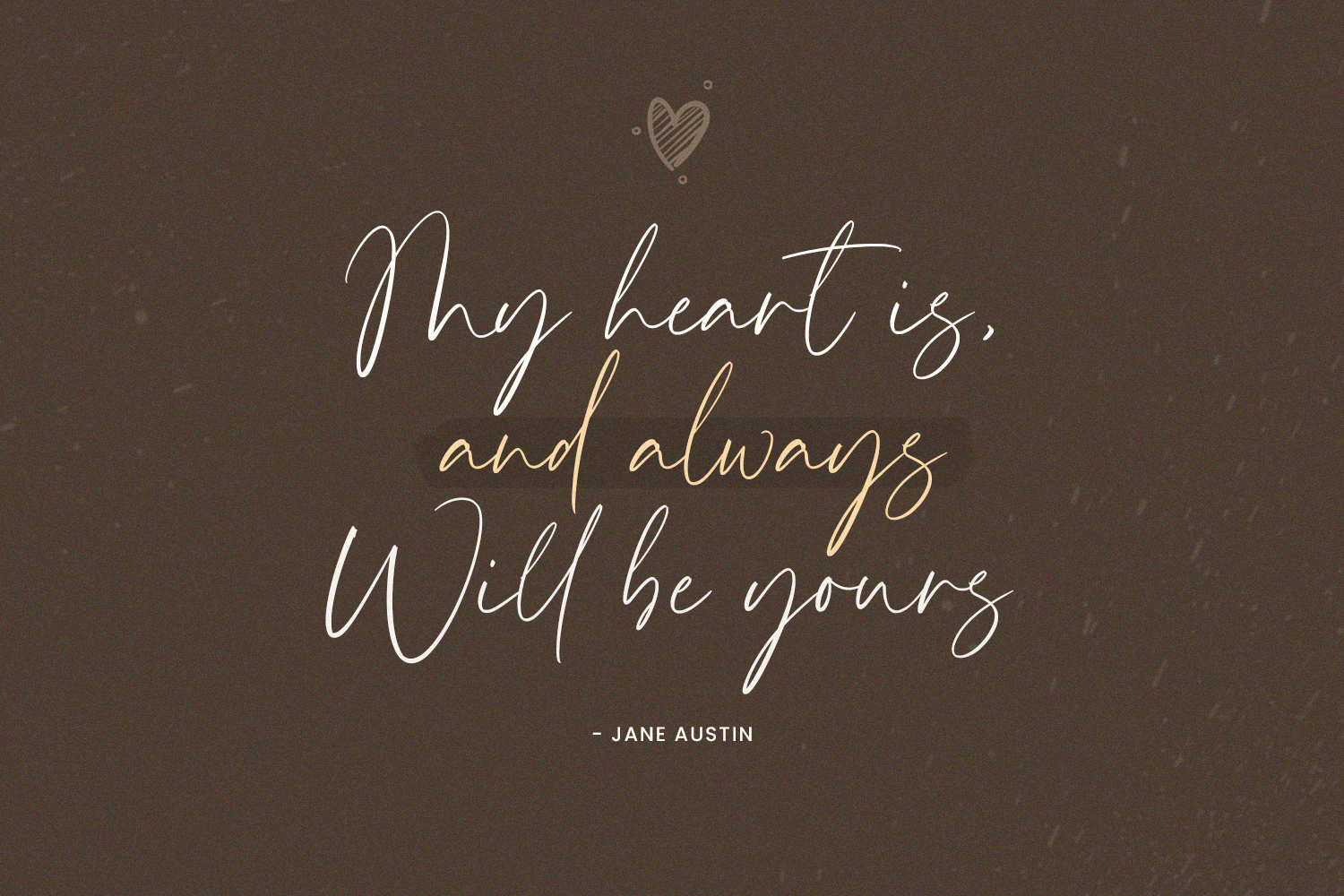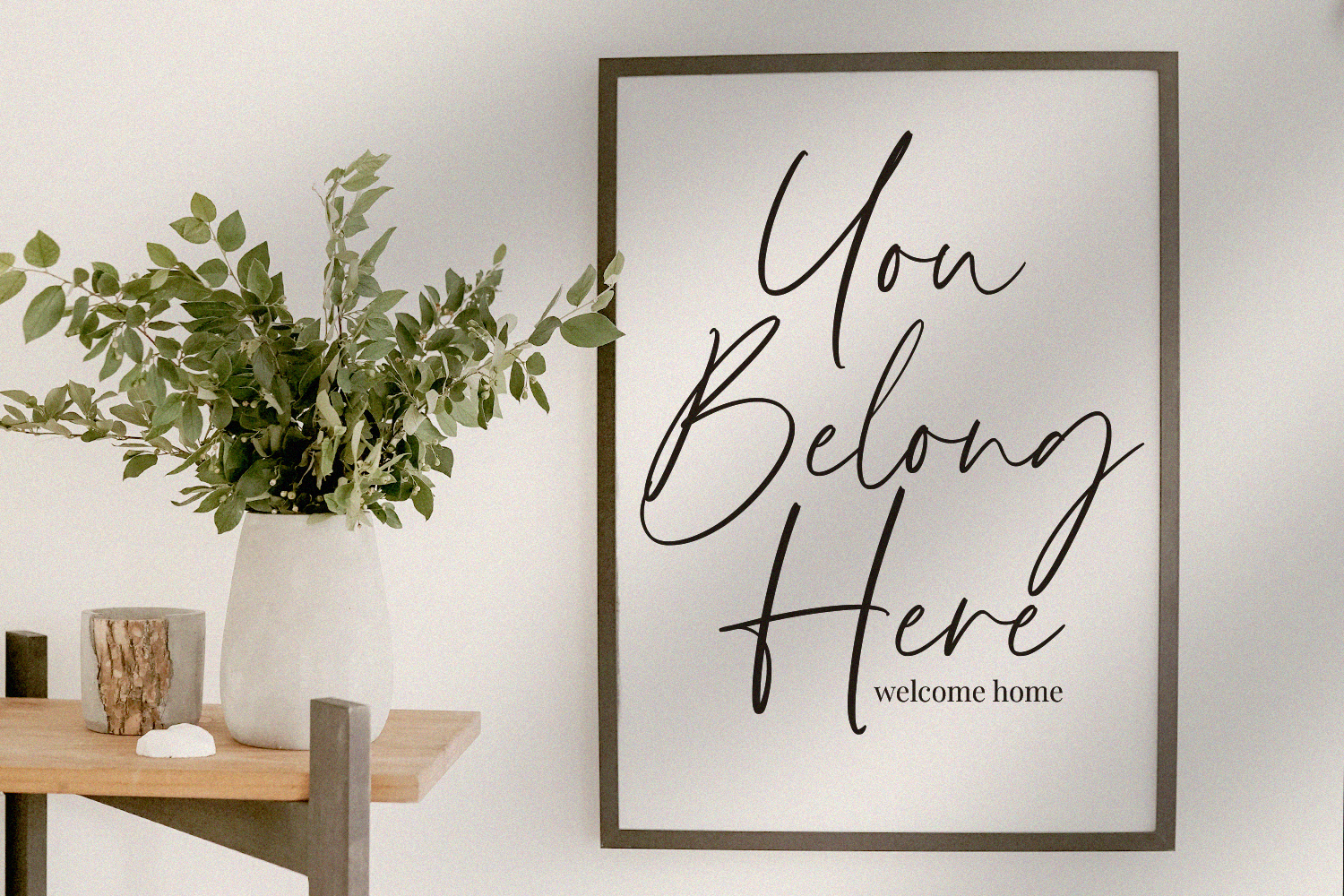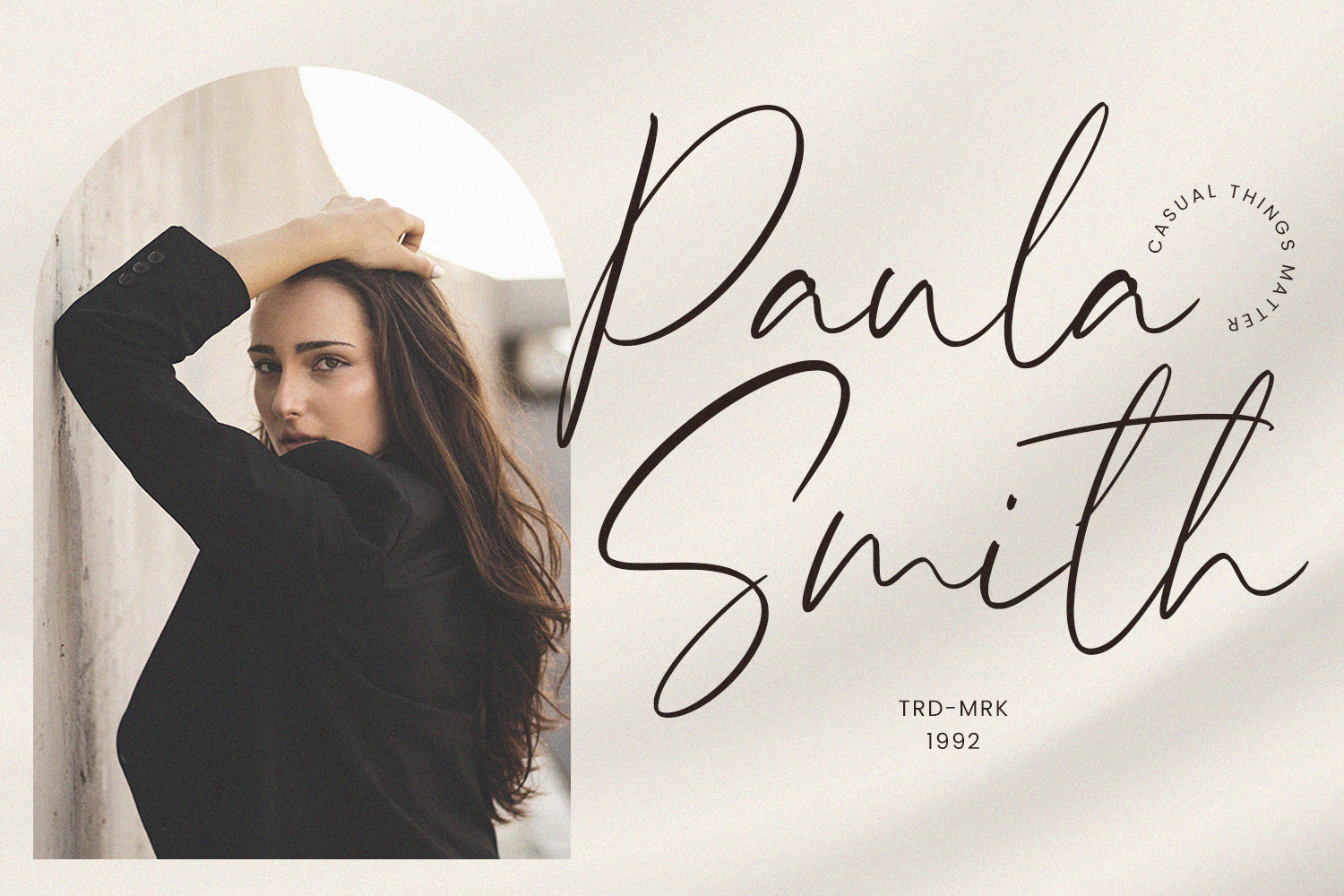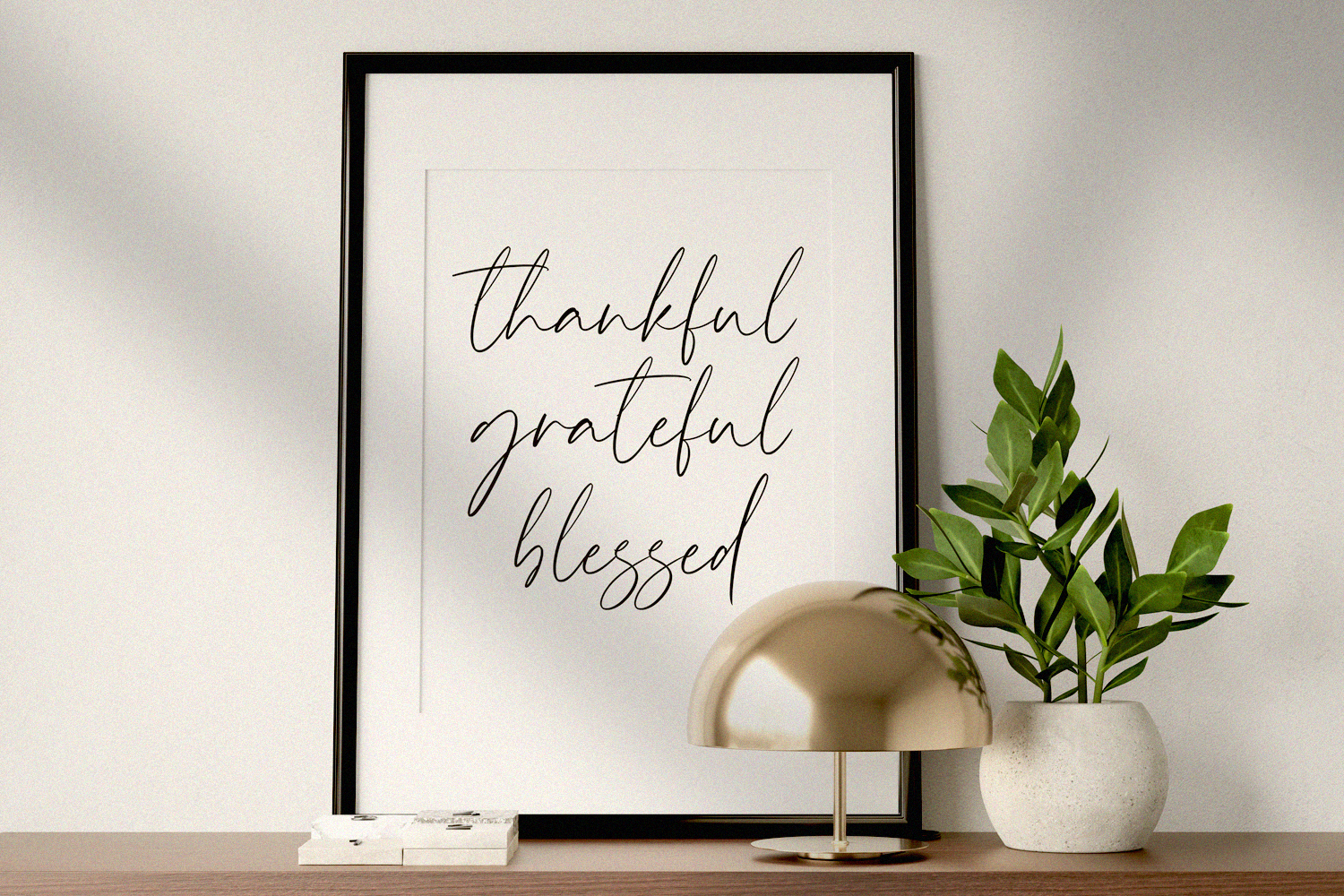
Timberlyn Free Font
Timberlyn Free Font is a delicate, elegant, and flowing handwritten font. It has beautiful and well-balanced characters and as a result, it matches a wide pool of designs. Add it to your most creative ideas and notice how it makes them come alive. This free typeface was designed by a talented Timur type. If you like it don’t forget to check out the full version.